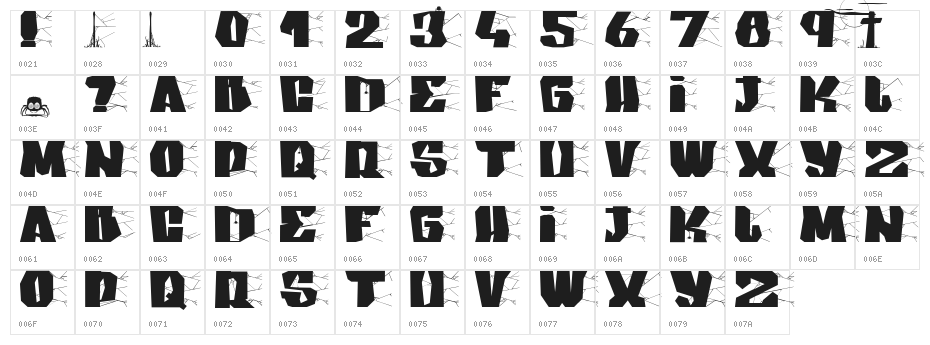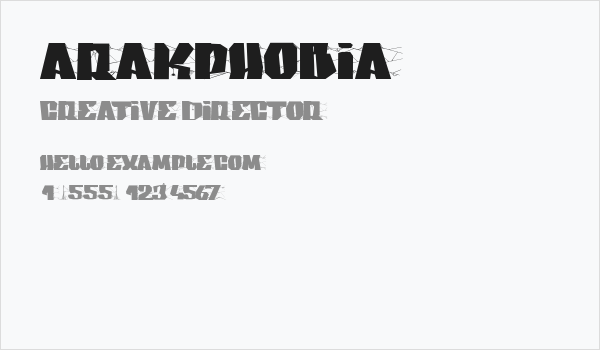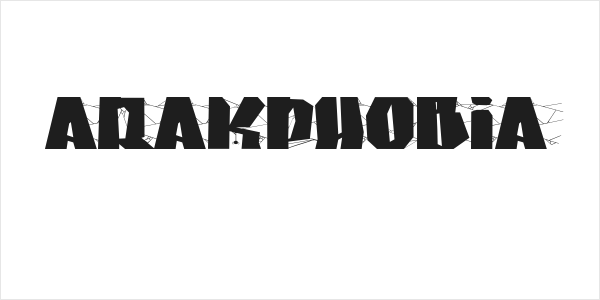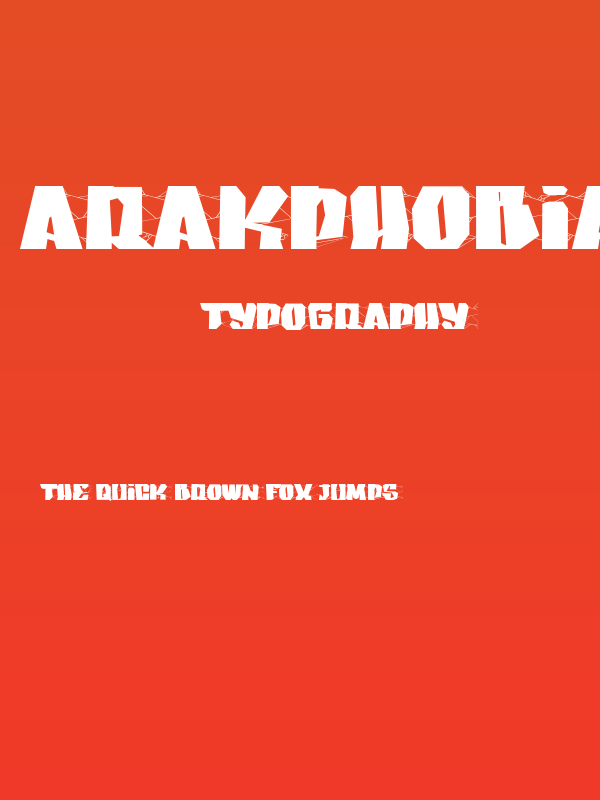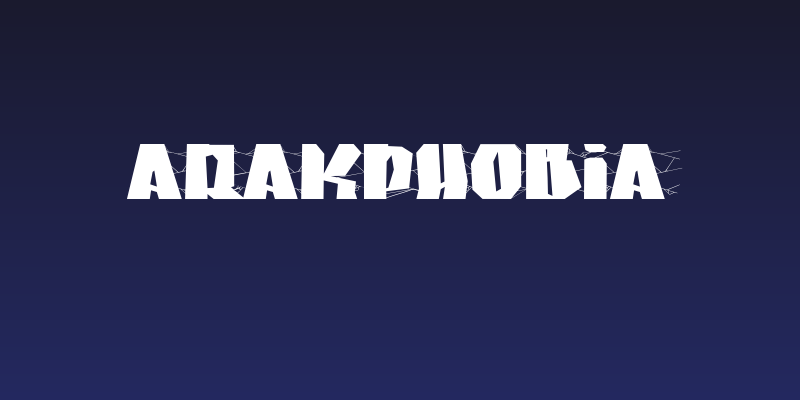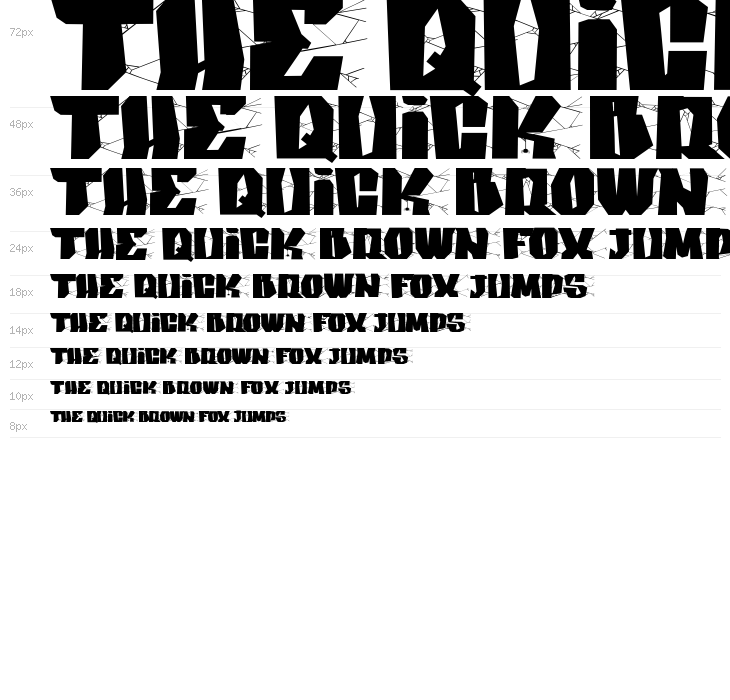
Arakphobia Font
Arakphobia Description
This font features a bold and striking design with a unique, web-like texture that gives it a distinctive, edgy appearance. The characters are heavily stylized, with sharp angles and thick strokes that create a sense of depth and dimension. The intricate detailing within each letter resembles spider webs, adding a touch of mystery and intrigue. This font is perfect for projects that require a dramatic and eye-catching typeface, as it commands attention and conveys a sense of boldness and creativity. The uppercase and lowercase letters maintain a consistent style, ensuring a cohesive look across different text elements.
| Proposed Projects | Ideal for horror-themed posters, Halloween invitations, edgy branding, and creative graphic design projects. |